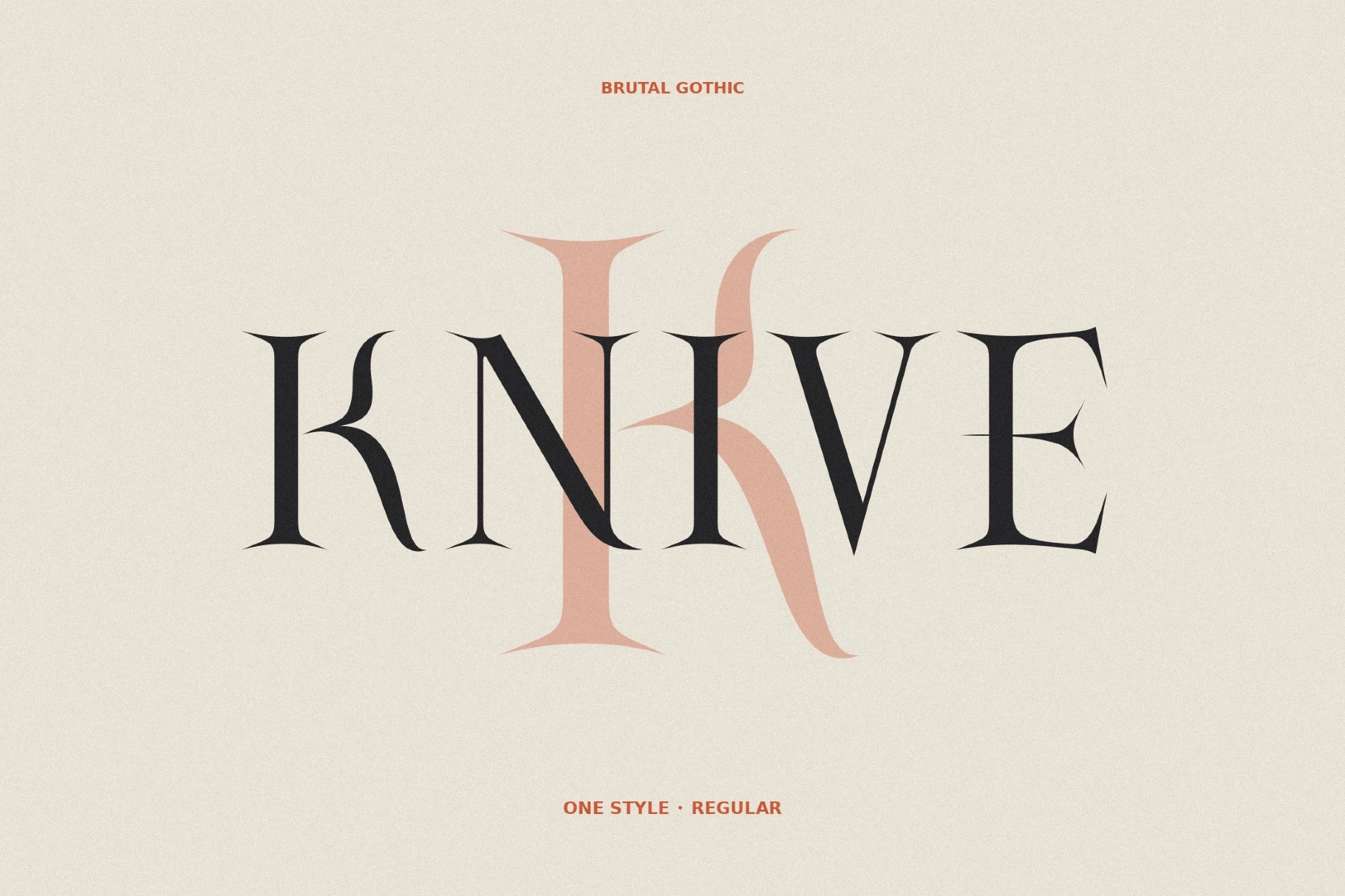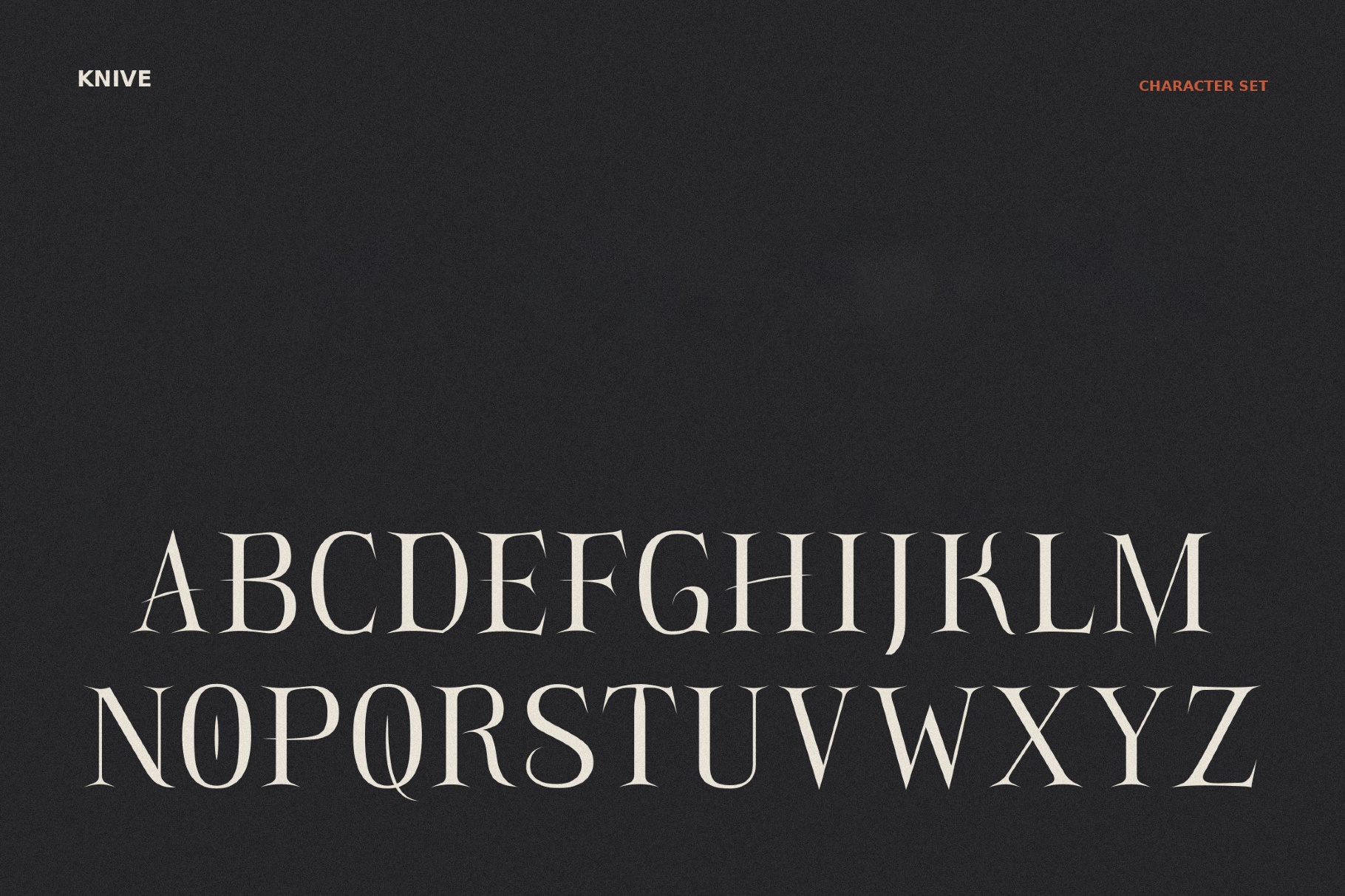
Knive - Royal Font
Knive
Knive looks designed for expensive, dangerous titles. Its high-contrast serif, with long blade-like stems and piercing terminals, recalls Gothic fashion editorials, occult book covers, and black-metal logotypes. The dramatic mood is perfect for dark fragrance packaging, album covers, thriller posters, fashion campaigns, tattoo studio identities, ceremonial branding, and editorial headlines.